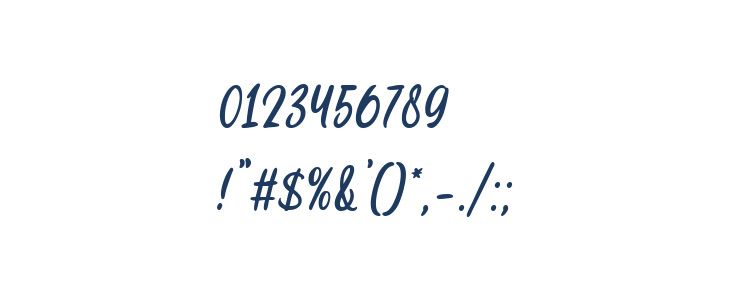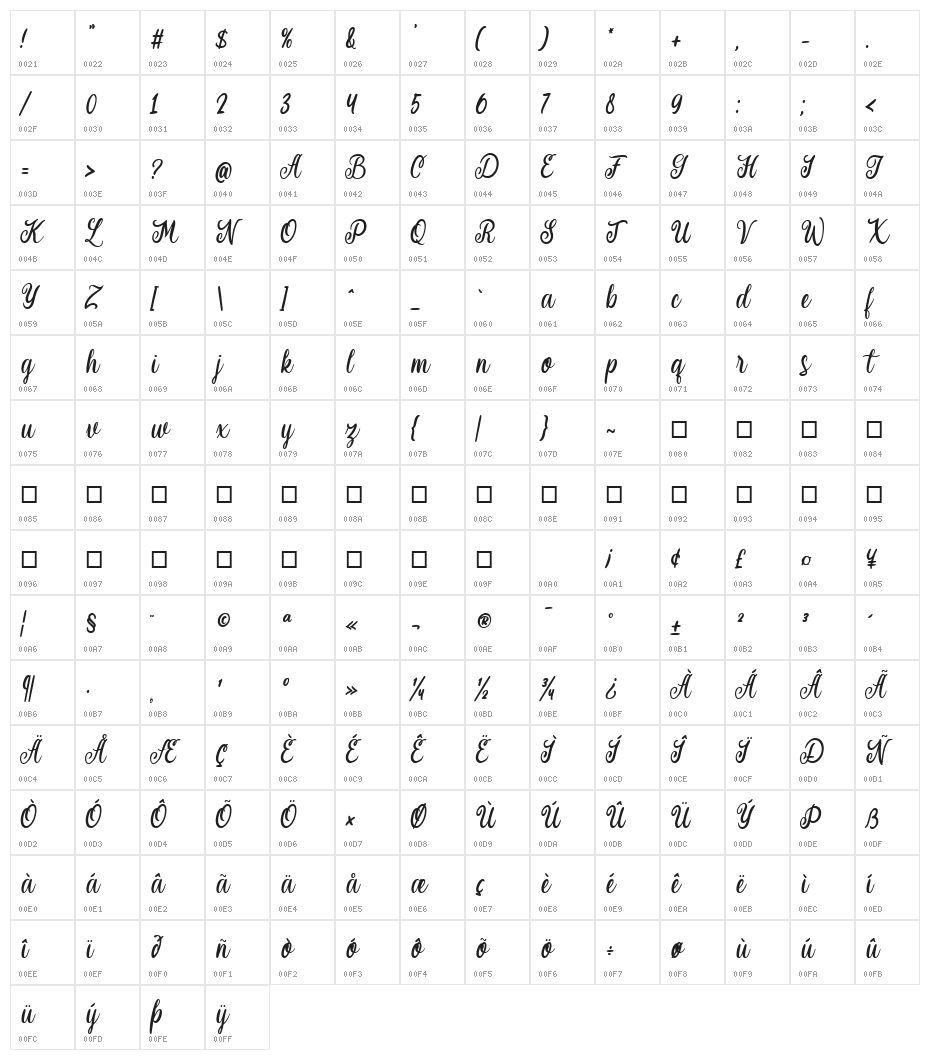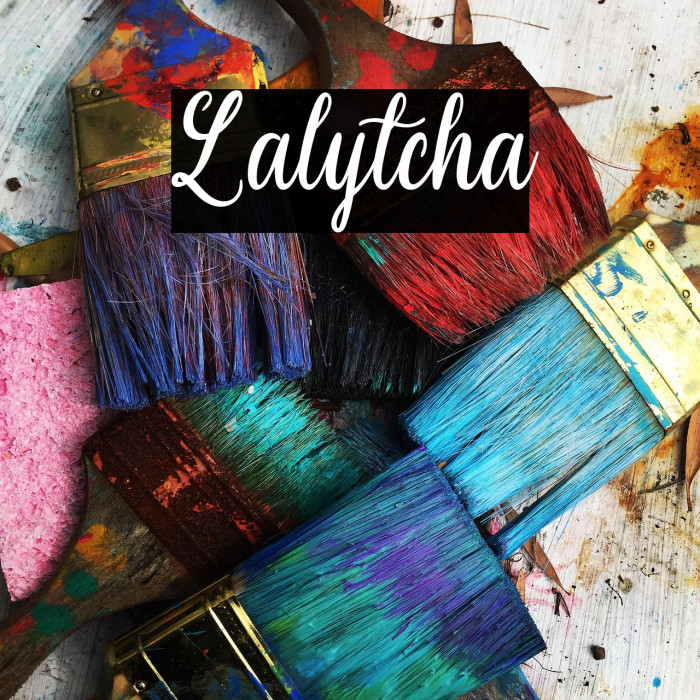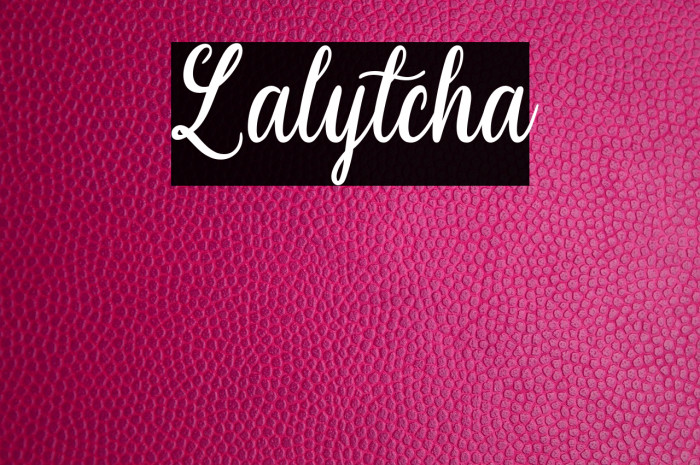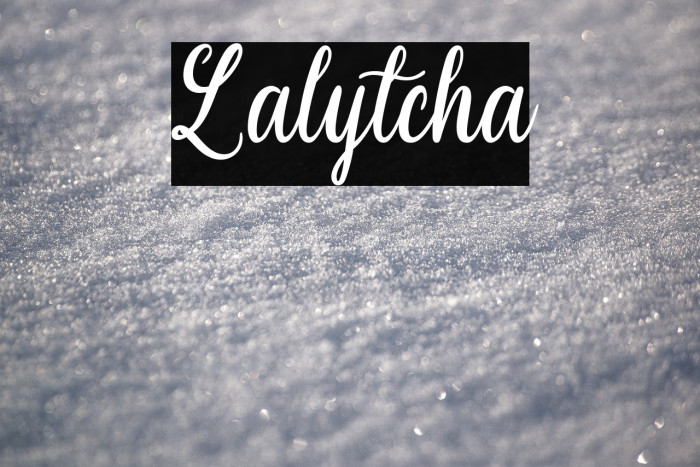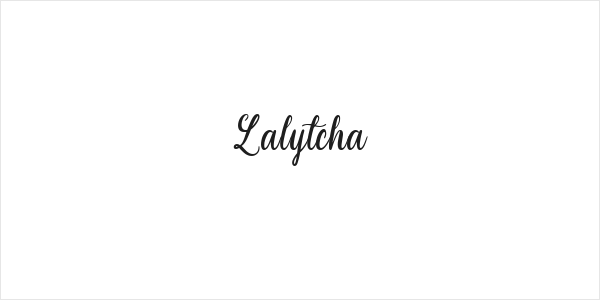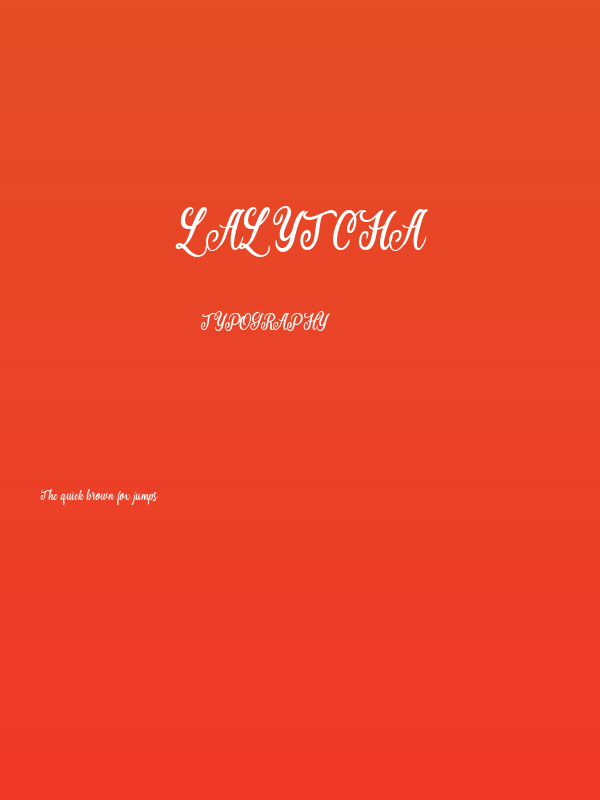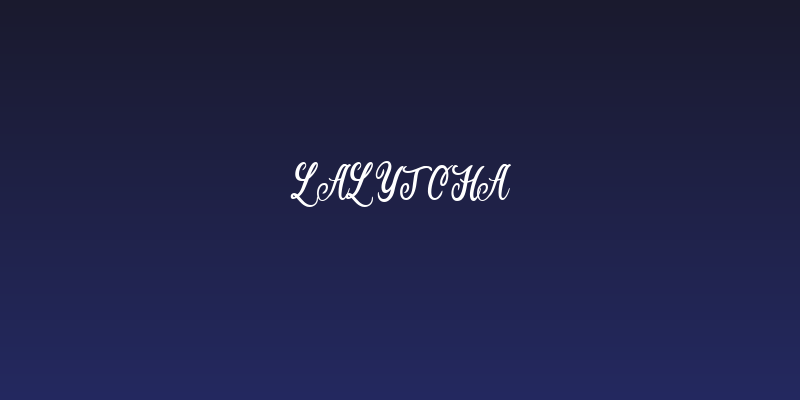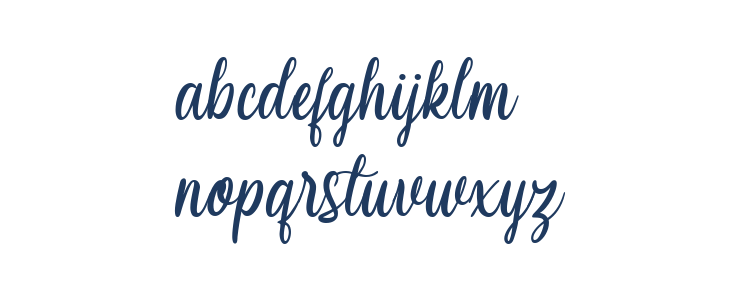
Lalytcha Font
Lalytcha Description
This font features an elegant and flowing script style, characterized by its smooth, cursive letterforms. The uppercase letters are ornate with intricate loops and swashes, giving a sense of sophistication and grace. The lowercase letters maintain a consistent flow, complementing the uppercase with their slightly less elaborate design. The numerals are clear and maintain the cursive theme, while the special characters integrate seamlessly with the overall aesthetic. This font exudes a sense of elegance and is well-suited for formal invitations, branding, and decorative purposes.